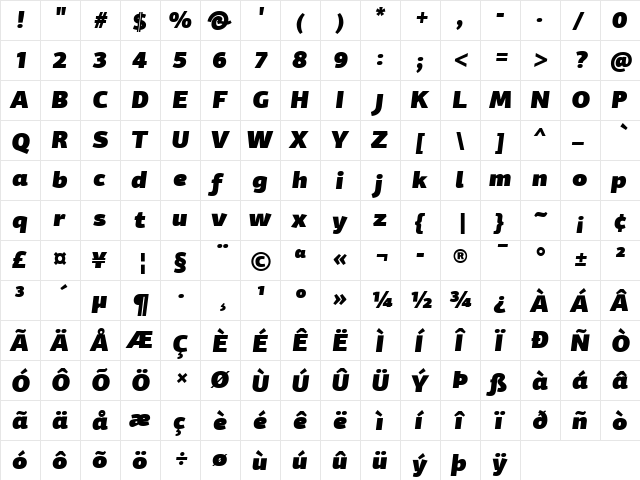
PF Agora Sans Pro UltraBlack Italic
| Designer | Panos Vassiliou |
Design Context for PF Agora Sans Pro Typeface
PF Agora Sans Pro offers clean, dependable letterforms without strong stylistic allegiance, making it a practical choice for designers who need flexibility. Its italic angle brings a sense of urgency and motion to the letterforms.
Pro Tip: Use PF Agora Sans Pro for emphasis, pull quotes, and subheadings where its slanted energy can add rhythm to the layout.